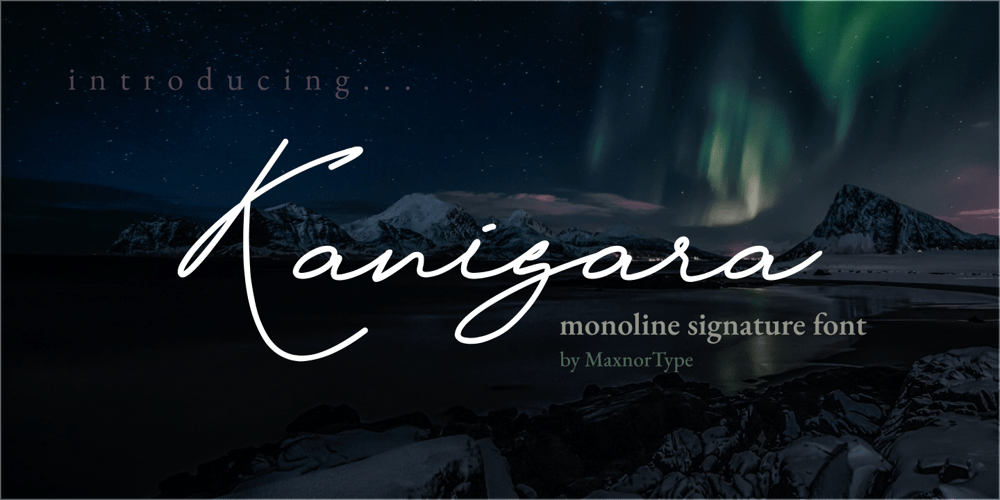
Kanigara Font Family was designed by Ahmad N. and published by MaxnorType. Kanigara contains 1 styles and family package options. Kanigara is a handwritten like monoline typeface. Its signature style is perfect for adding a natural touch to your logos, branding, invitations, covers, and much more!